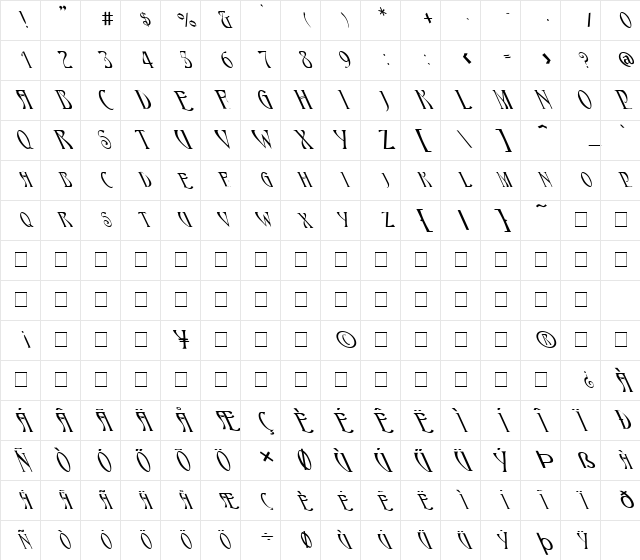
Complete JAZZY18 LEFTY HU Normal glyph index. Displaying only characters natively supported by JAZZY18 LEFTY HU Normal font.
JAZZY18 LEFTY HU is a composed and adaptable typeface that performs quietly and consistently across a wide range of design contexts.